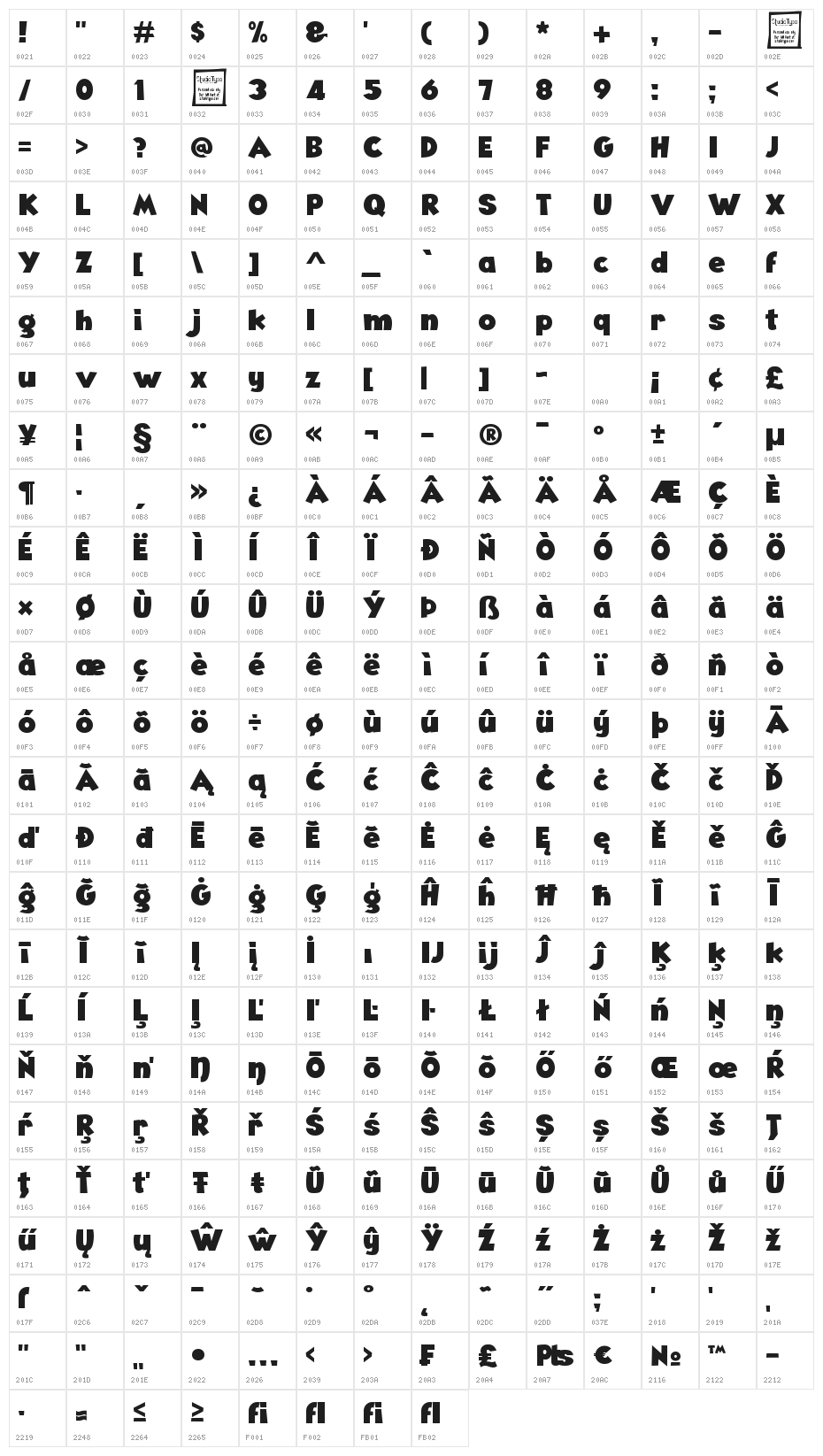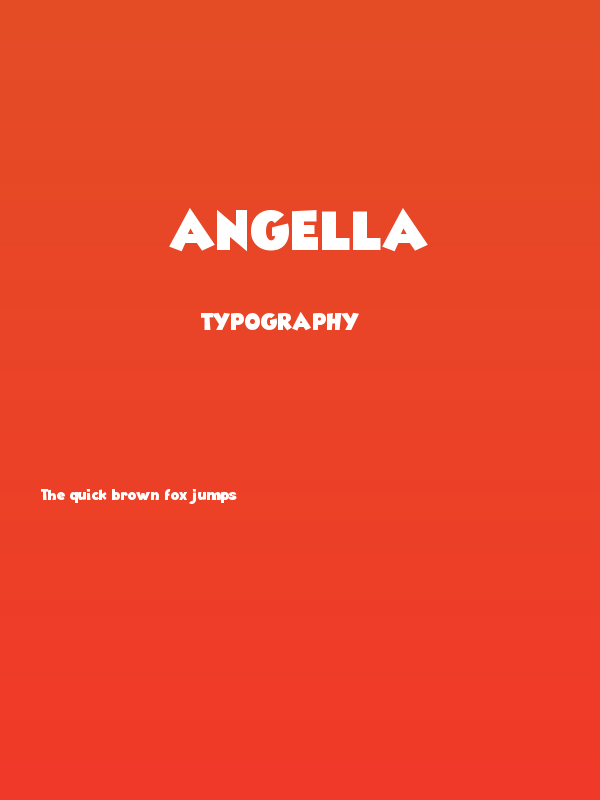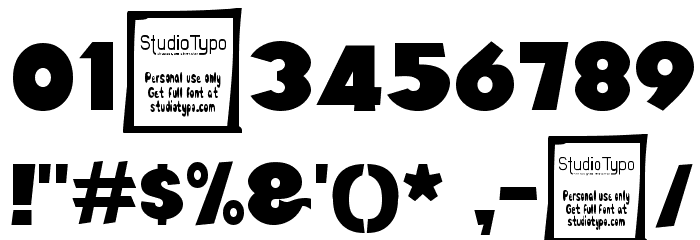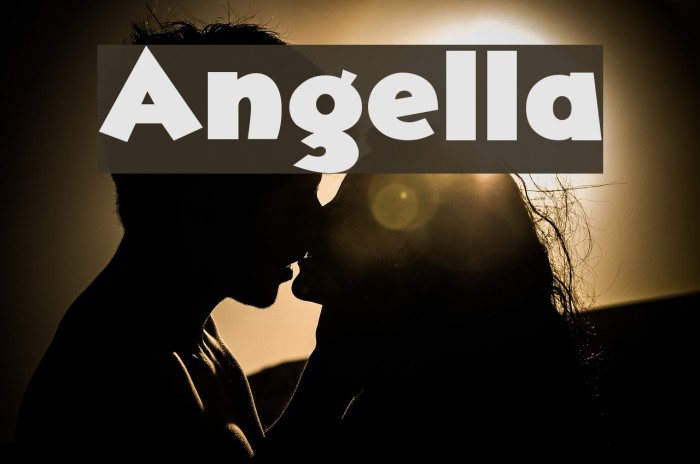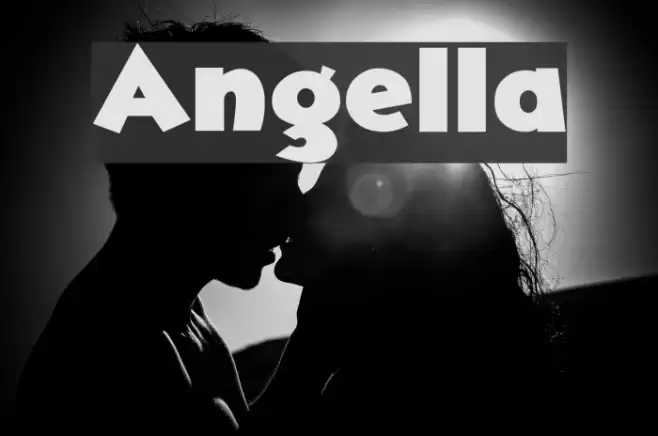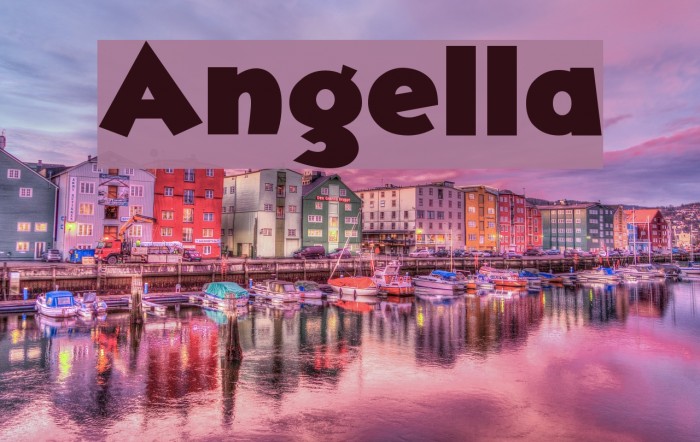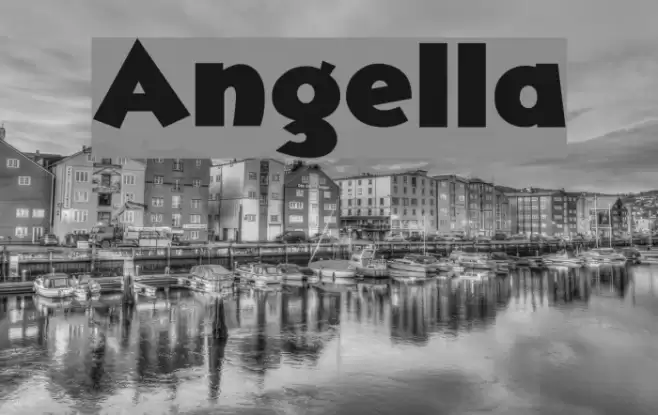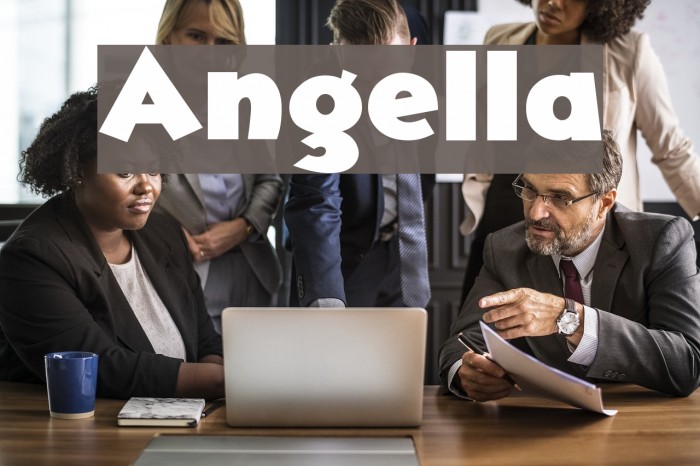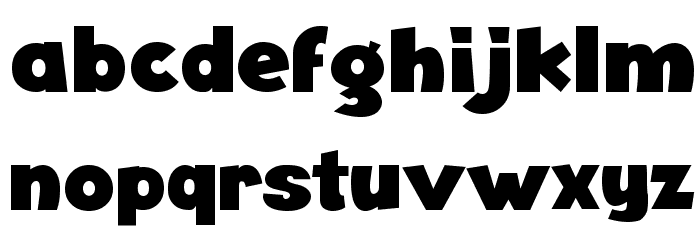
Angella Font
Angella Description
This font features bold, playful characters with a strong presence. The letters are thick and rounded, giving a sense of friendliness and approachability. The uppercase letters are particularly striking, with a slightly condensed form that adds to their impact. Lowercase letters maintain the same boldness, ensuring consistency across text. Numbers and special characters follow the same design ethos, making them easily readable and visually appealing. This font is ideal for projects that require a fun and engaging look, such as children's books, playful branding, or eye-catching headlines.
| Overall Style | Playful, Friendly |
| Proposed Projects | Ideal for children's books, playful branding, and eye-catching headlines. |